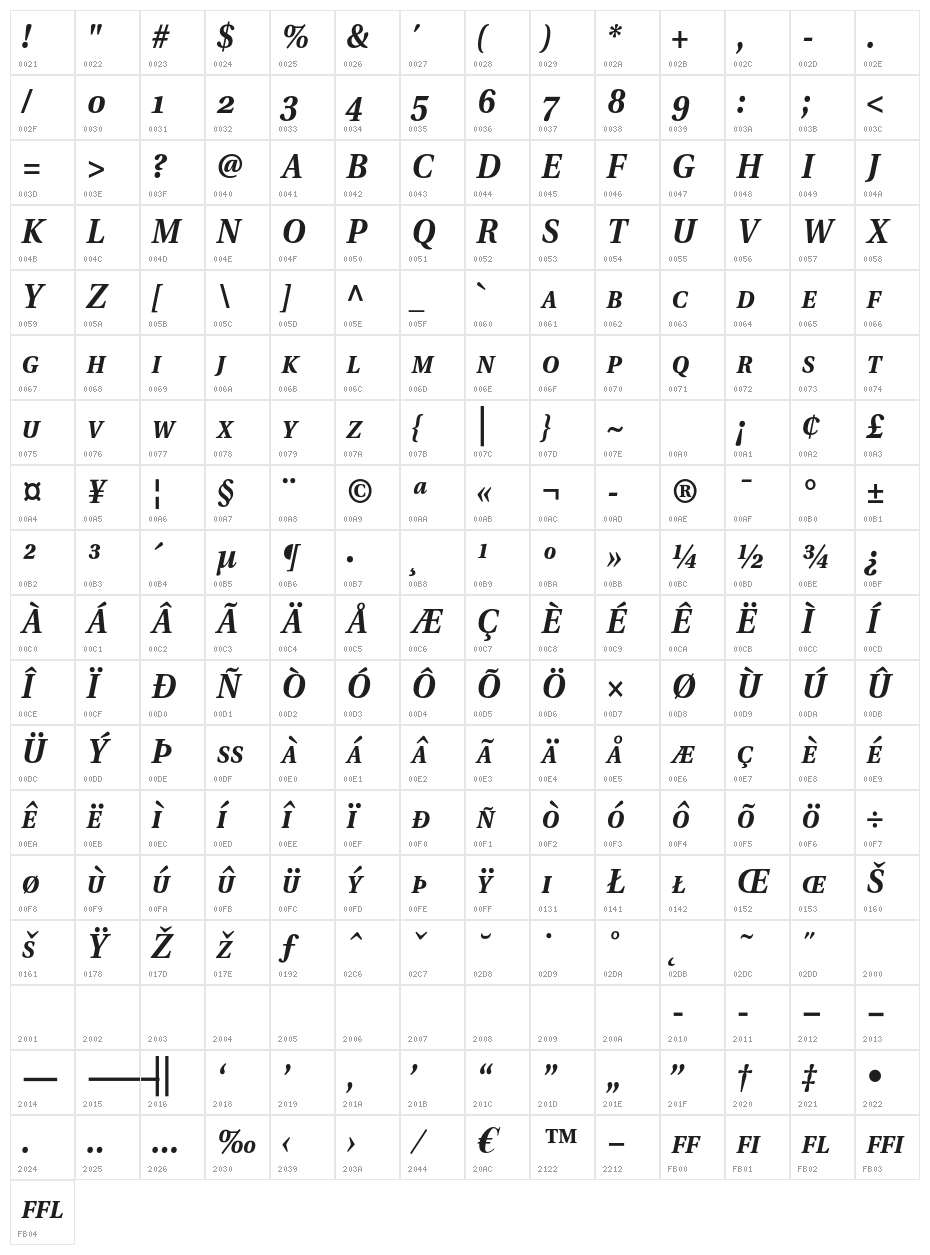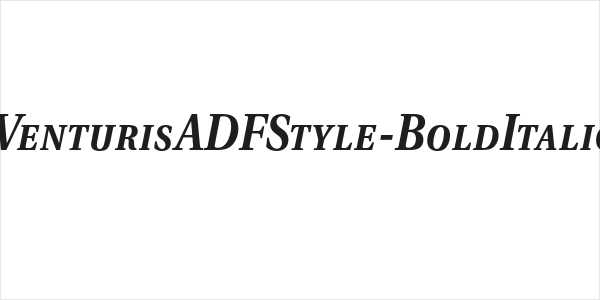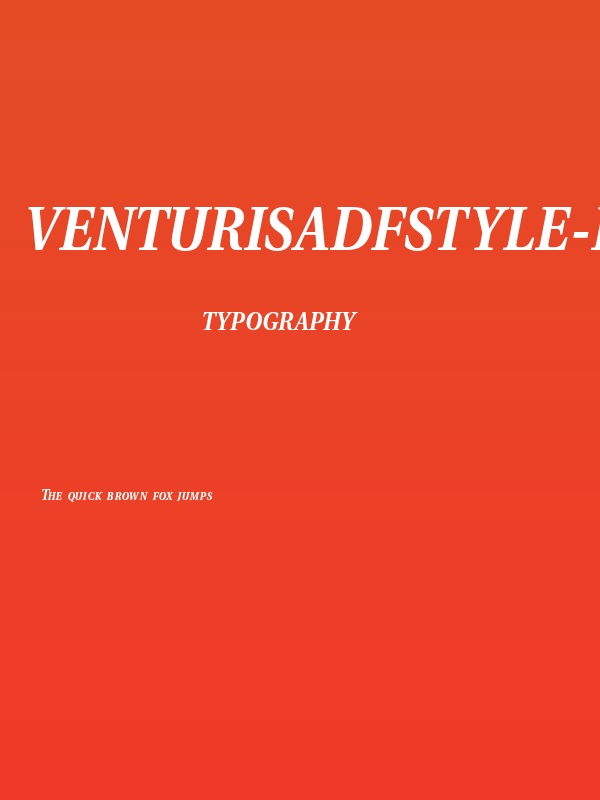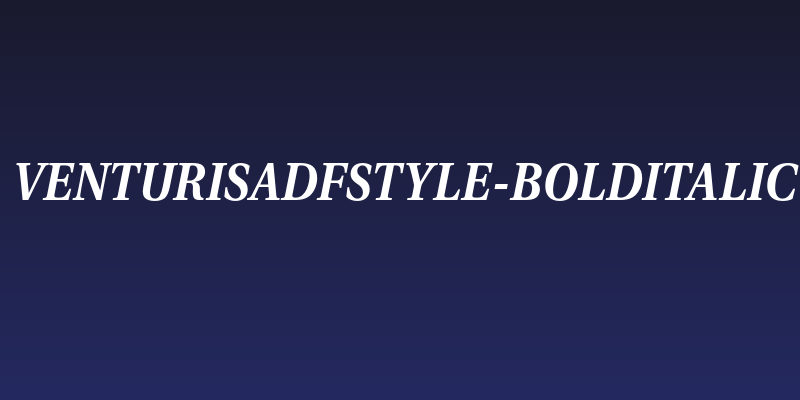
VenturisADFStyle-BoldItalic Font
VenturisADFStyle-BoldItalic Description
This font features a bold and italicized style, characterized by its strong and dynamic presence. The letters have a classic serif design, with pronounced serifs that add a touch of elegance and tradition. The italic slant gives the font a sense of movement and fluidity, making it suitable for conveying emphasis and sophistication. The numerals are consistent with the overall style, maintaining the bold and italic characteristics. Special characters are well-integrated, ensuring versatility in various design contexts. The font's overall appearance is both authoritative and stylish, making it a great choice for impactful text.
| Use Case | Headlines, Logos, Editorial design |
| Proposed Projects | Ideal for book covers, formal invitations, branding, and editorial design. |